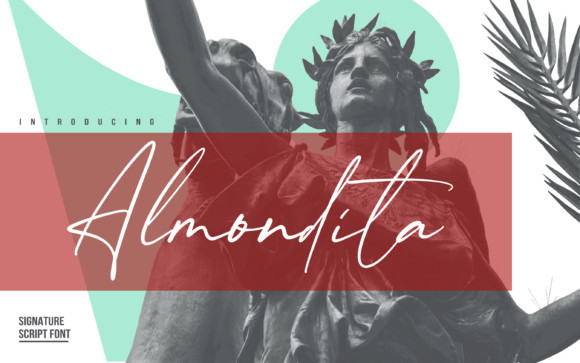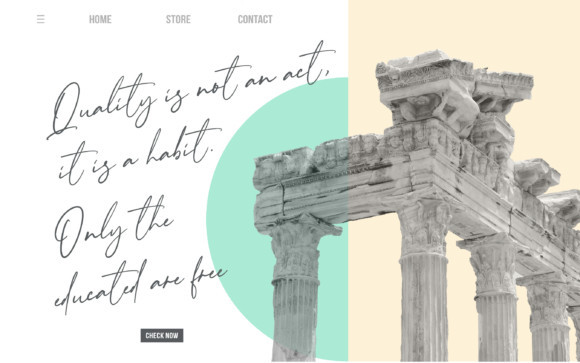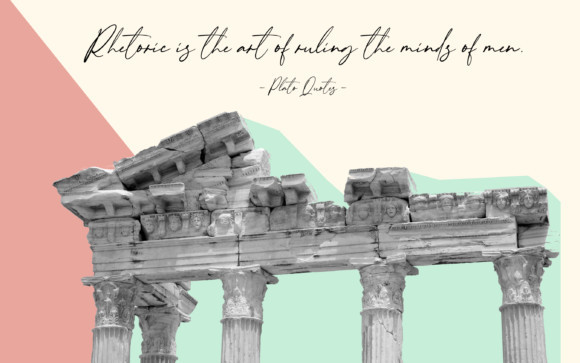
Almondita Font
Almondita feels equally charming and elegant. This stunning handwritten font is a stylish homage to classic calligraphy. It features a varying baseline, smooth lines, gorgeous glyphs and stunning alternates.